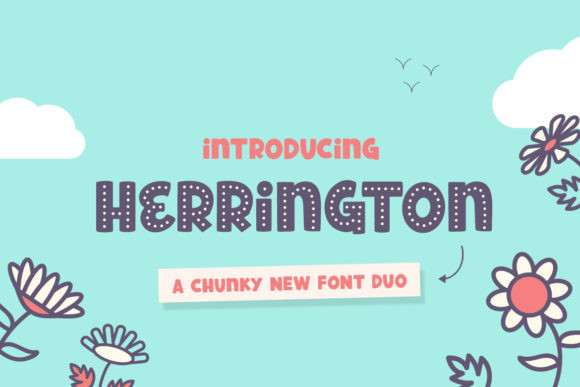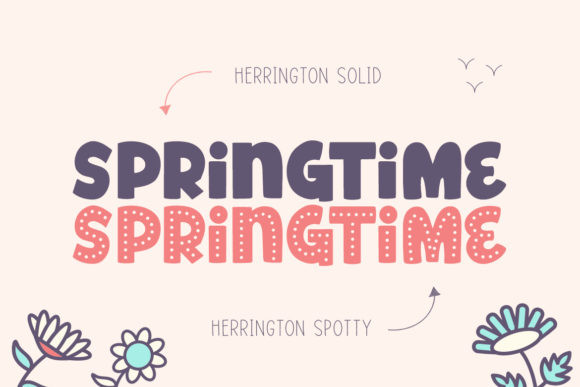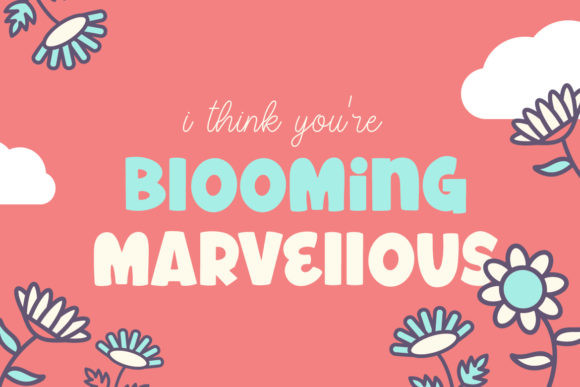
Herrington Font
Herrington is a bold and thick lettered display duo font. This font is perfect for children themed designs, especially when combined with bright colors.